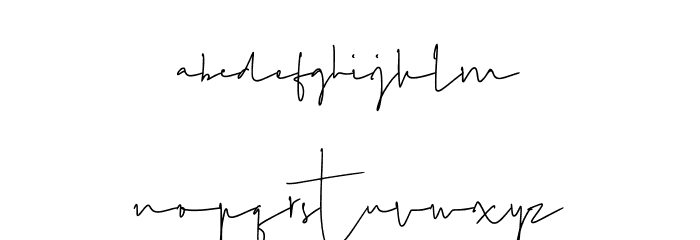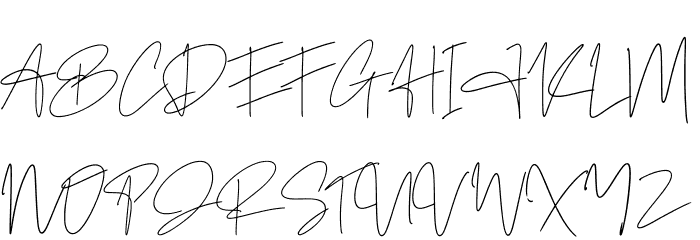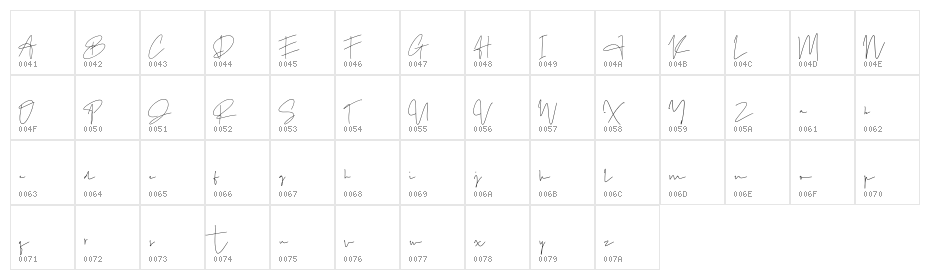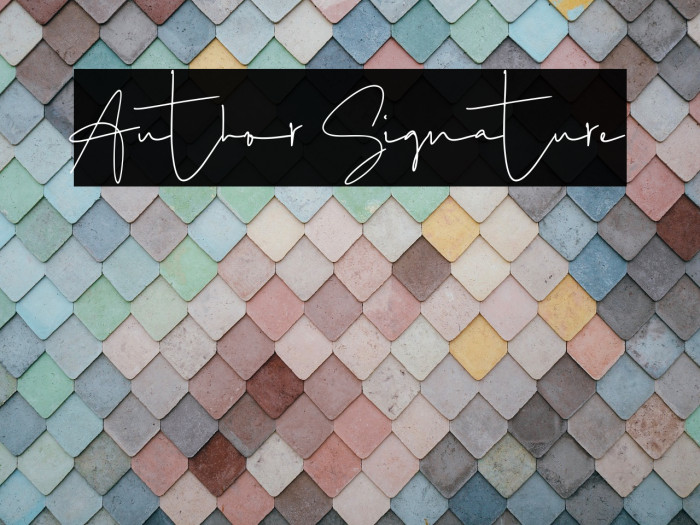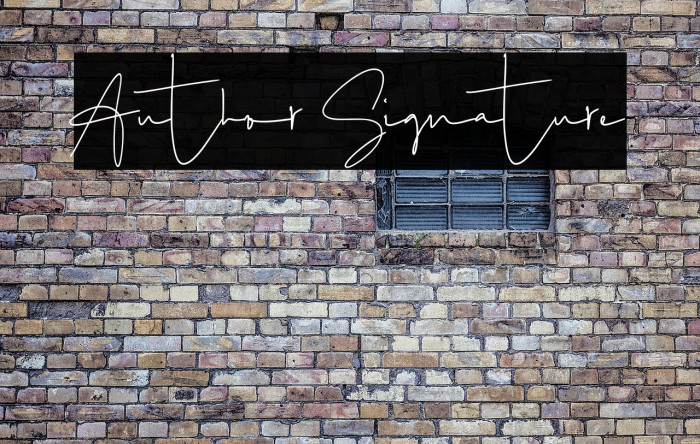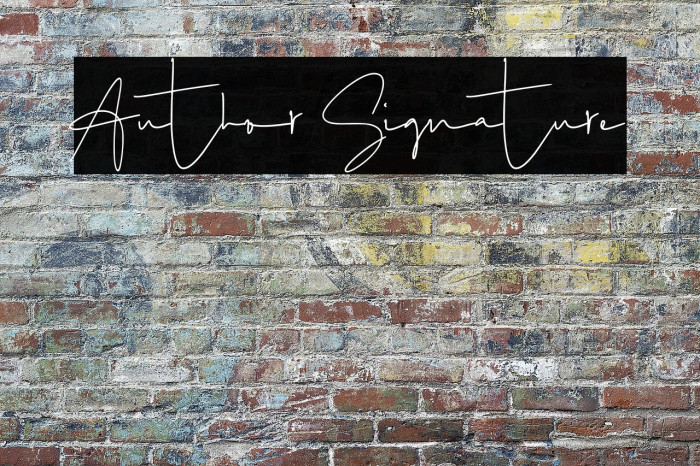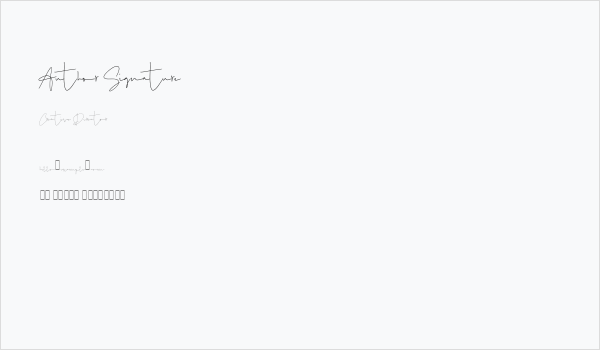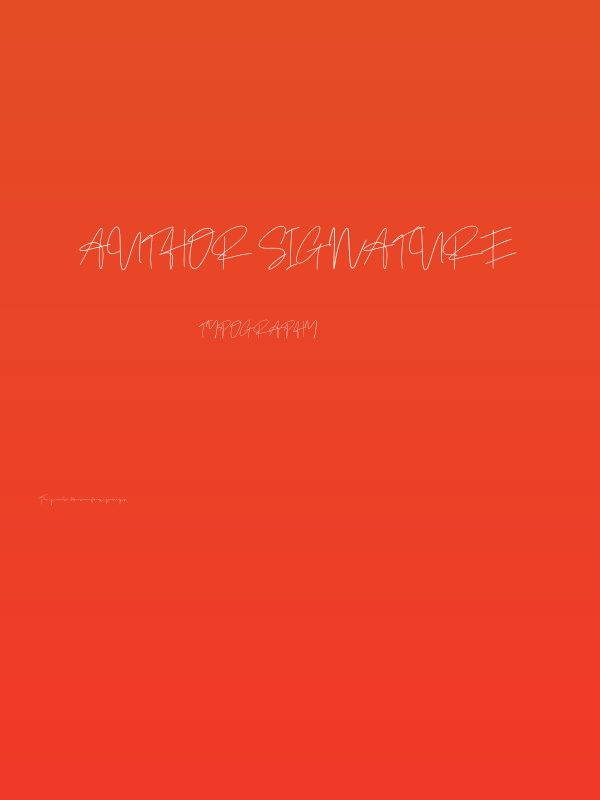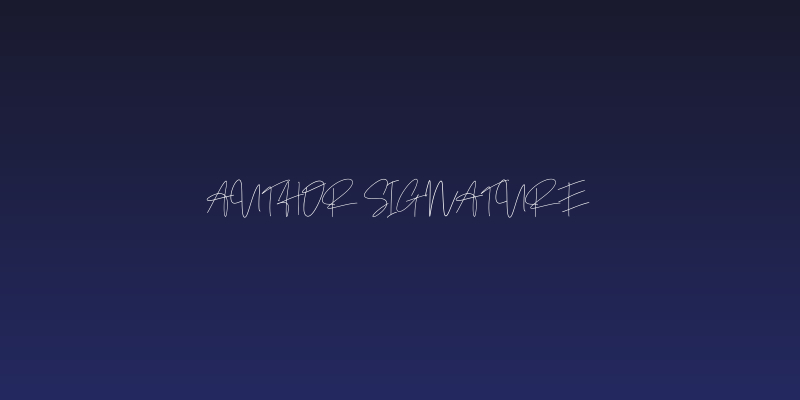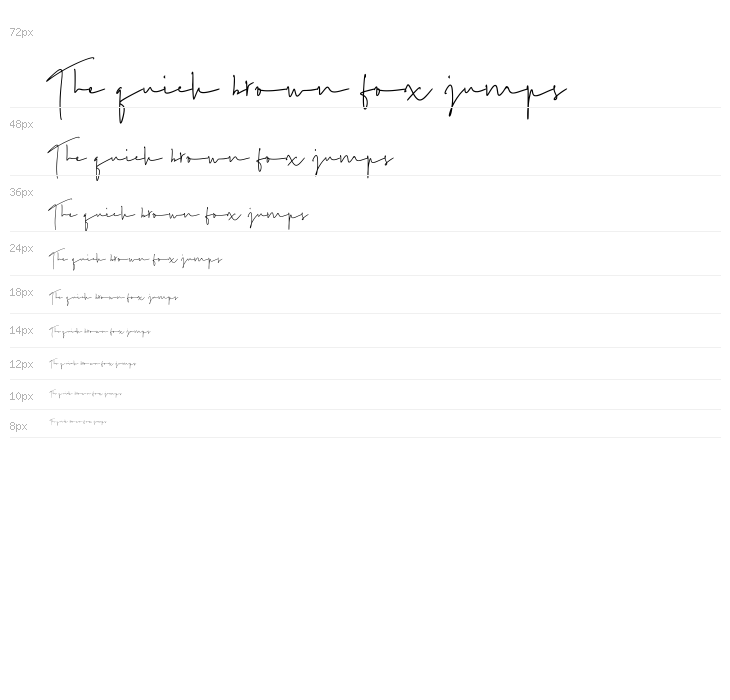
Author Signature Font
This font embodies a handwritten, cursive style that mimics the fluidity and personal touch of an author's signature. The letters are elongated and connected, with a natural flow that suggests a quick, yet deliberate writing style. The strokes are thin and slightly irregular, adding to the authenticity and charm of a handwritten note. The uppercase letters maintain a consistent height, while the lowercase letters vary slightly, enhancing the organic feel. This font is ideal for projects that require a personal, intimate touch, such as invitations, personal branding, or artistic projects. Its unique style captures the essence of individuality and creativity.
A cursive, handwritten font with a fluid, signature-like style.
- Proposed Projects: Ideal for personal branding, invitations, artistic projects, and any design needing a personal touch.
- Use Case: Logos, Invitations, Personal branding